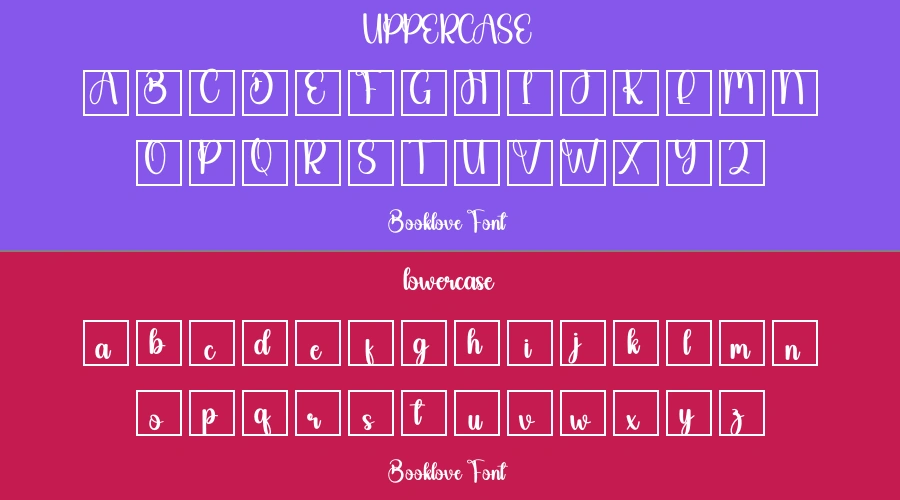
About Booklove Font
Booklove Font stands out for its distinctive combination of brush influence and reliability. Ideal for formal announcements, it provides the accuracy and creative excellence that professional projects demand. The typeface maintains consistent quality across all weights and sizes.
Key features include refined angled joins and practical initial forms, enhancing typographic expression. In instruction steps applications, Booklove Font demonstrates exceptional consumer preference. The letterfit and cultural relevance contribute to its distinctive character and professional appeal.